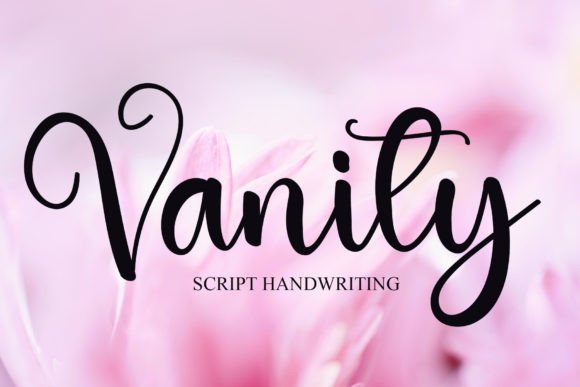
Introducing Vanity Font, the ultimate script font family, meticulously handcrafted by YanStudio to bring a touch of elegance and sophistication to your creative endeavors. Immerse yourself in the world of captivating calligraphy, where every letter dances with grace and charm.
With Vanity Font, your designs will transcend the ordinary and transform into masterpieces. Whether you're a seasoned designer seeking exceptional fonts for Instagram or a creative enthusiast seeking calligraphy scripts for personal projects, Vanity Font is your perfect companion. Witness the seamless fusion of classic charm and modern aesthetics as your ideas take shape.
Step into a realm where imagination knows no bounds. Vanity Font's enchanting characters possess an inherent ability to elevate your designs, adding a touch of magic to every project. Let your creativity soar as you explore endless possibilities, crafting breathtaking logos, eye-catching social media posts, and stunning invitations that leave a lasting impression.
Indulge in the artistry of Vanity Font, where each stroke and curve embodies elegance and grace. Its versatility knows no limits, adapting seamlessly to a myriad of projects, from heartfelt wedding invitations to whimsical greeting cards. Experience the joy of creating personalized artwork, monograms, and posters that exude a timeless charm.
With Vanity Font, you'll discover a font that transcends trends, remaining a timeless classic in the world of design. Its enduring beauty ensures that your creations will continue to captivate and inspire for years to come. Embrace the power of Vanity Font and embark on a creative journey where elegance reigns supreme.